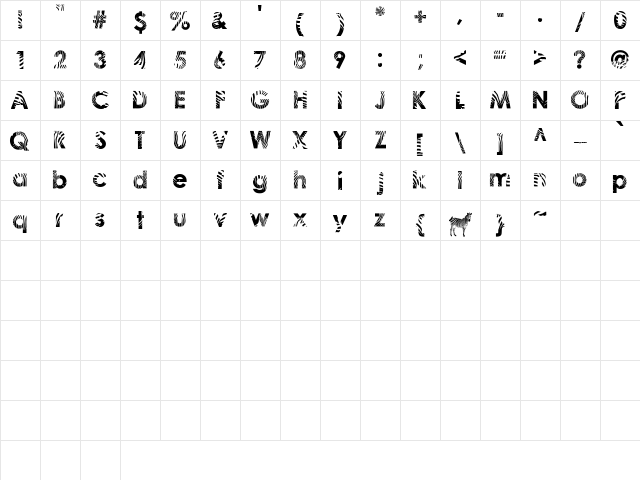
Zeebraa Regular
Design Context for Zeebraa Typeface
Zeebraa is a composed and adaptable typeface that performs quietly and consistently across a wide range of design contexts.